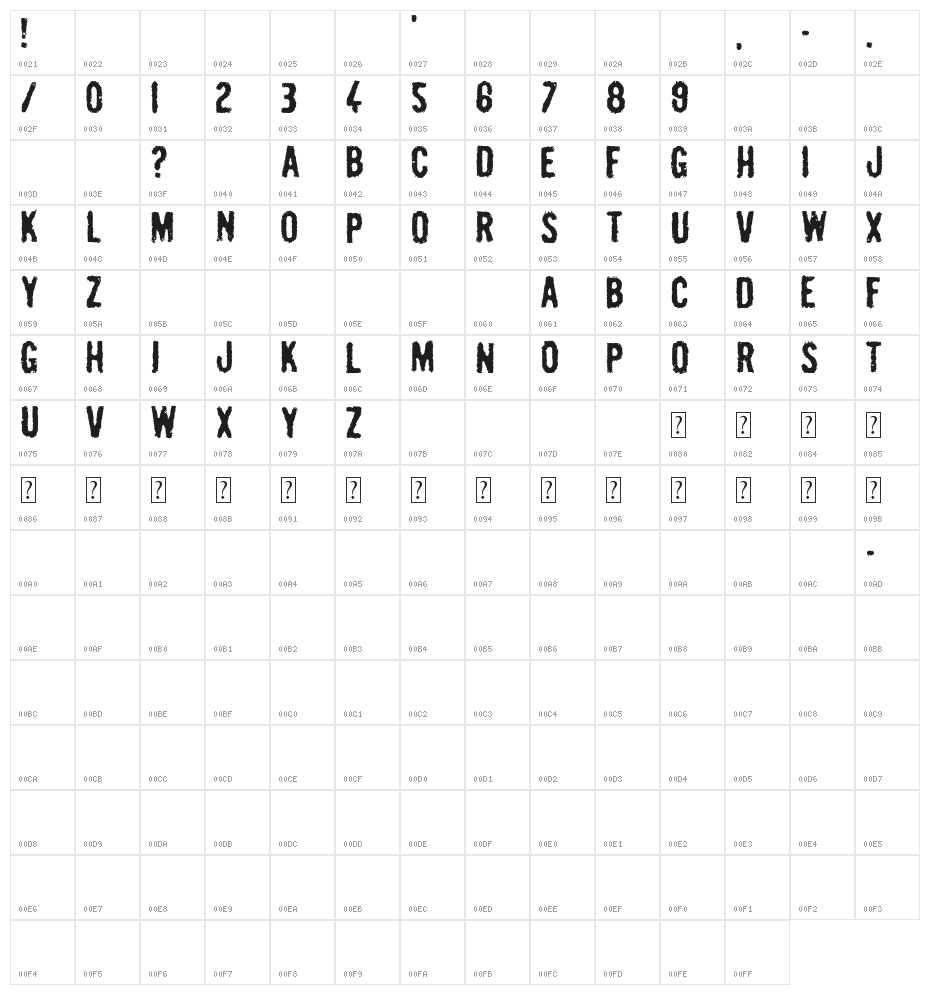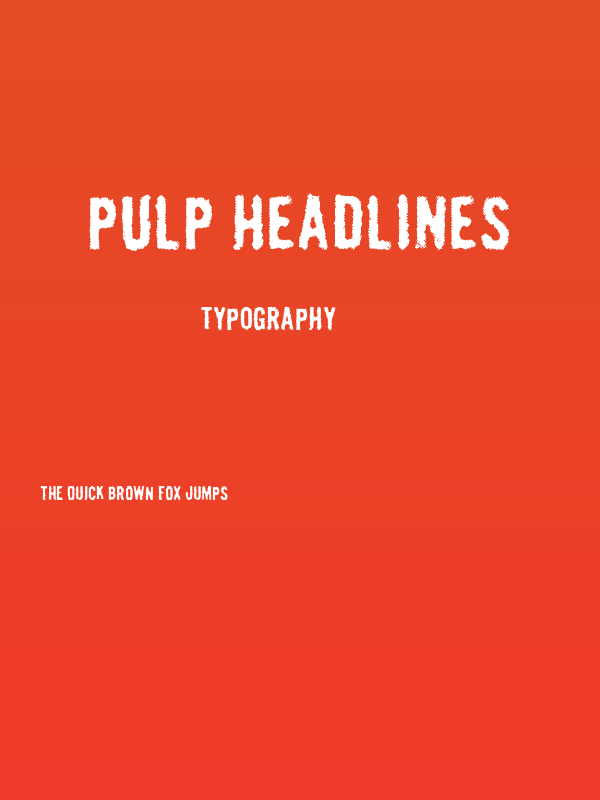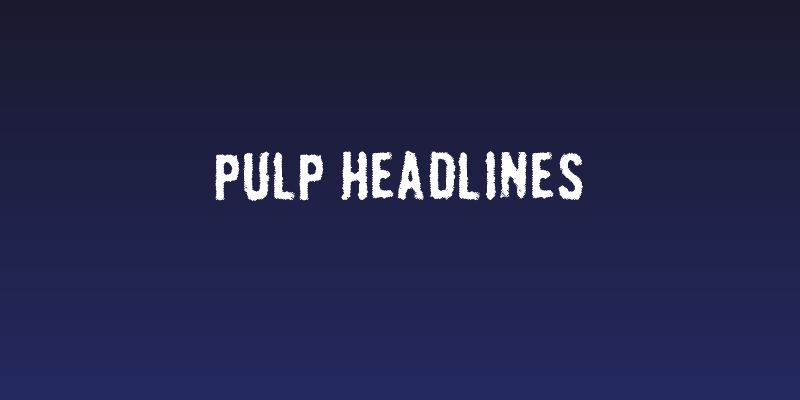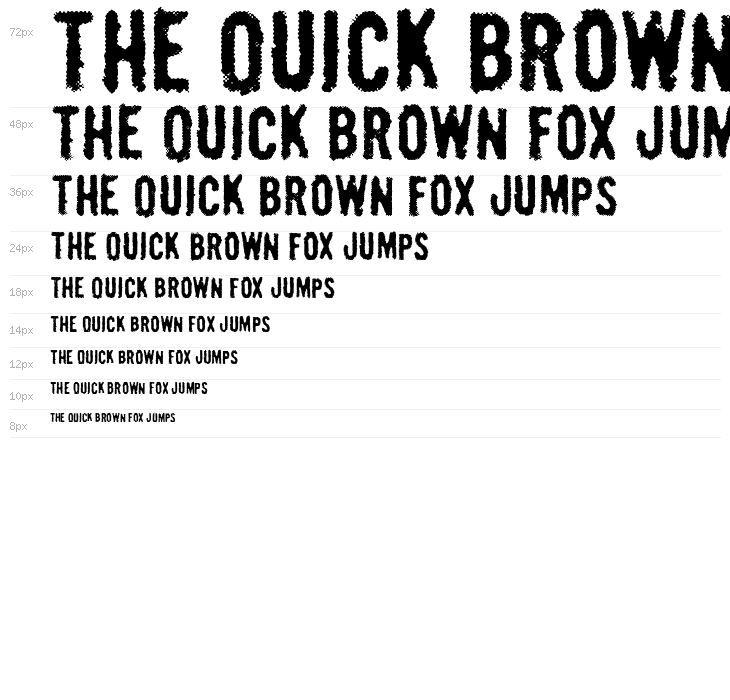
Pulp Headlines Font
Pulp Headlines Description
This font features a bold, distressed style with a rough, textured appearance that evokes a vintage, gritty feel. The characters are uppercase and have a slightly irregular outline, giving them a hand-crafted look. The font's boldness and unique texture make it stand out, ideal for creating eye-catching designs. The numbers and punctuation marks follow the same stylistic approach, ensuring consistency across all characters. This font is perfect for projects that require a strong, impactful visual presence.
| Overall Style | Vintage |
| Proposed Projects | Ideal for movie posters, album covers, retro-themed designs, and branding that requires a bold statement. |